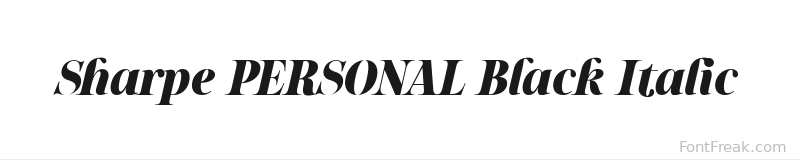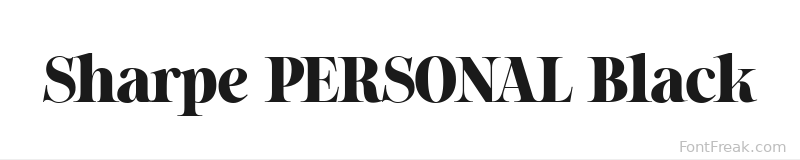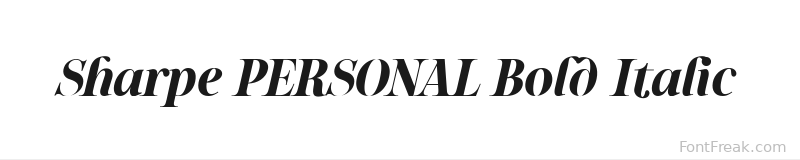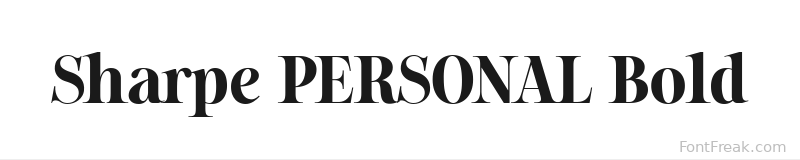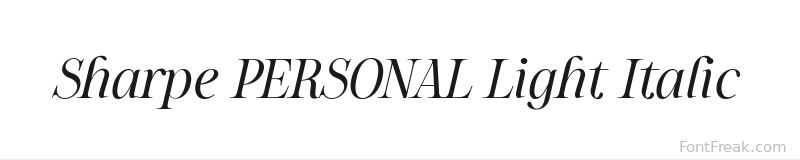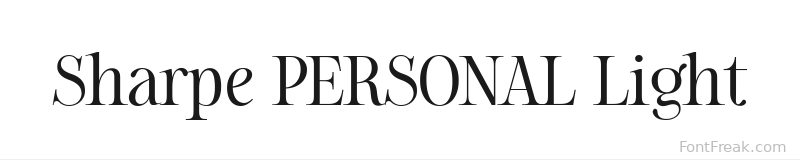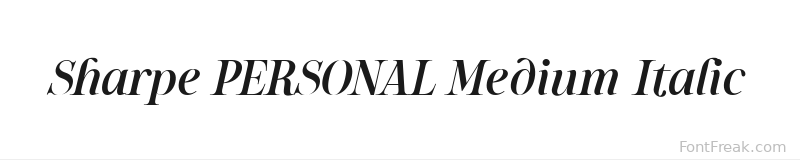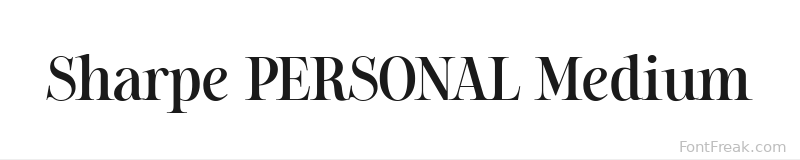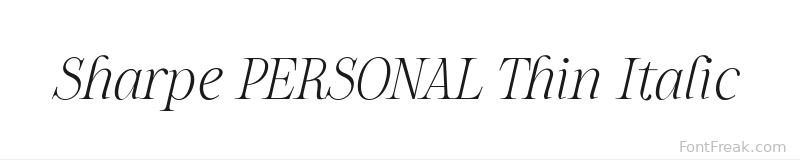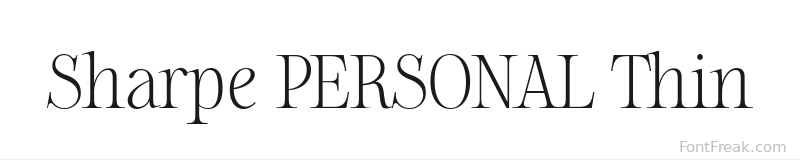
Sharpe PERSONAL Black
About Sharpe PERSONAL Black
Introducing the Sharpe PERSONAL Black font by Mans Greback, a striking display typeface that embodies both elegance and modernity. This font falls into the category of display fonts, making it a versatile choice for eye-catching designs. Its bold stroke weight and well-defined characters create a strong visual impact, perfect for capturing attention in various contexts. The overall design features a balanced contrast that enhances readability while maintaining a sophisticated aesthetic. The ample spacing between letters allows for clarity, making it an ideal option for both large headings and shorter text.
The Sharpe PERSONAL Black font is particularly well-suited for a variety of creative applications. It shines in wedding invitations, where its elegant flair adds a touch of romance to the occasion. Movie posters benefit from its bold presence, making titles stand out against dynamic imagery. Restaurant menus can utilize this font to convey a sense of style and taste, enticing diners with its sophisticated look. Additionally, it works wonderfully for branding materials, helping small business owners establish a memorable identity. Content creators will find this font useful for social media graphics and promotional materials, ensuring their messages resonate with audiences.
Targeting graphic designers, small business owners, and content creators, the Sharpe PERSONAL Black font free download is an accessible asset for anyone looking to elevate their design projects. Its unique combination of elegance and boldness makes it a standout choice in a crowded field of typefaces. Whether used for print or digital media, this font offers a distinctive personality that can enhance any creative endeavor, making it a go-to option for those seeking to make a lasting impression.